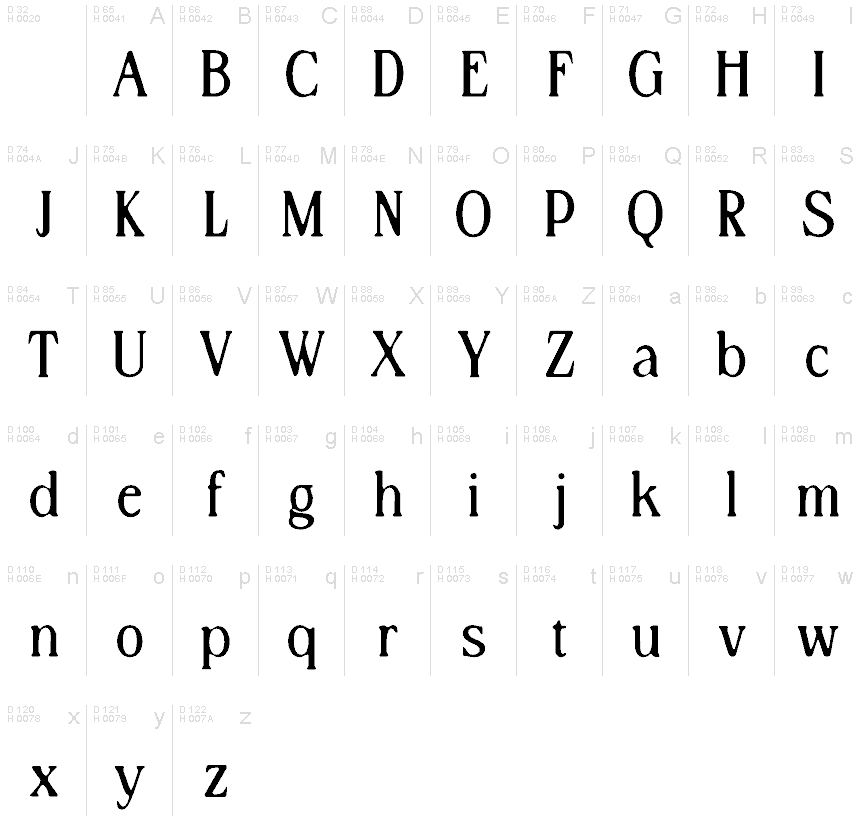
Clevon Blur Demo Regular
Clevon Blur is a serif font designed by Craft Supply Co with an elegant and vintage-inspired style. It holds a classic and refined appearance that offers excellent legibility. This variable resource is super versatile for branding projects, website layouts, prints, blogs, and modern artwork.